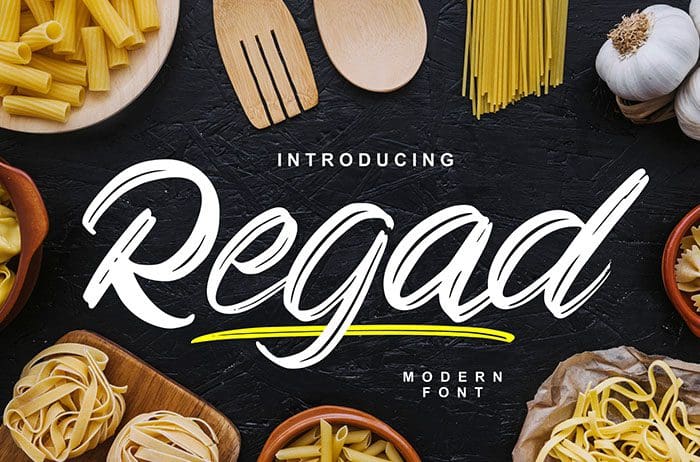
Regad Modern Food Font
Regad modern food font is a unique style. This display font is perfect for juice shop, fruit shop, restaurant, packaging, and many more. Thanks to Vunira Studio for sharing this font. Take a look at this portfolio for more of his stunning fonts.